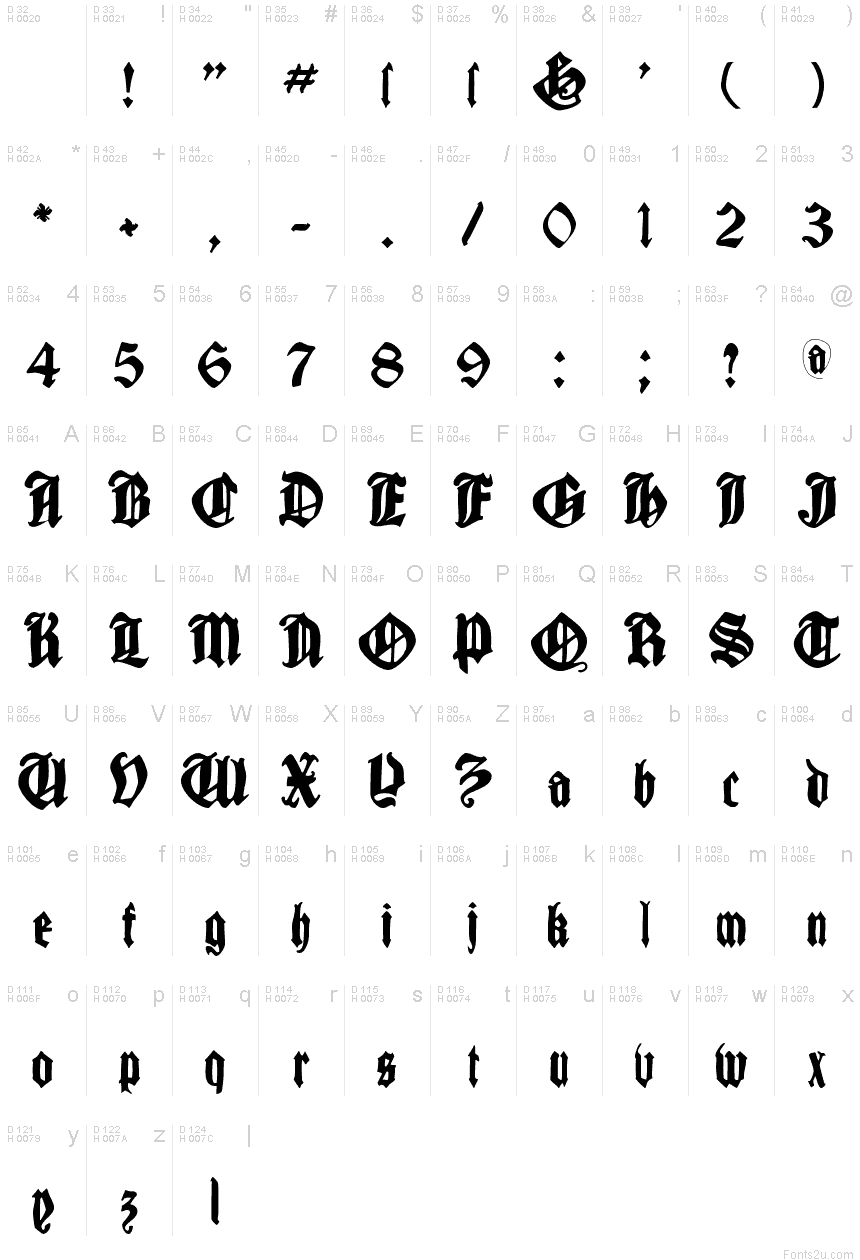
CantaraGotica
Cantara Gotica font by M. Klein is a free medieval Gothic typeface with dense, inky strokes and sharp, chiseled curves that feel lifted from an illuminated manuscript. The letters lock together tightly, creating a dark, continuous texture that instantly sets a scene of castles, cathedrals, and shadowy legends. It has a weighty, ceremonial presence that grabs attention without feeling cartoonish or flimsy.
This free font shines on fantasy book covers, metal band logos, horror posters, themed menus, game titles, and renaissance fair branding. Using Cantara Gotica in large sizes lets the pointed arches and sweeping curves really breathe, while a simple neutral sans serif for body text keeps everything readable.